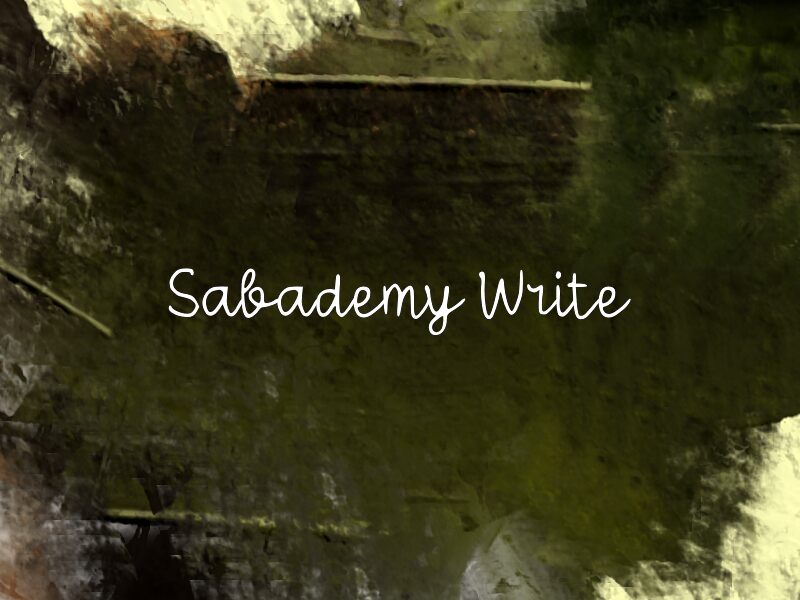
Sabademy Write font by wepfont.com is a free handwritten font with a friendly and informal appearance. The font imitates the visual styling of connected handwriting which gives the font uniformity, rhythm, and good structure. The main advantage of using this font is that it grants the end product of your graphic design project a genuine personal touch.
Sabademy Write font is incredibly versatile and useful in a variety of tasks. Use it to design or redesign branding, stationery, and signatures. It can be exceptionally prominent in postcards, apparel, whiteboards, educational visuals, and more.
Sabademy Write is a modern, versatile free font designed for a wide range of creative projects. Its elegant curves and clean lines make it an excellent choice for both digital and print designs. Whether you're creating a logo, flyer, or social media graphic, Sabademy Write lends a touch of sophistication and readability.